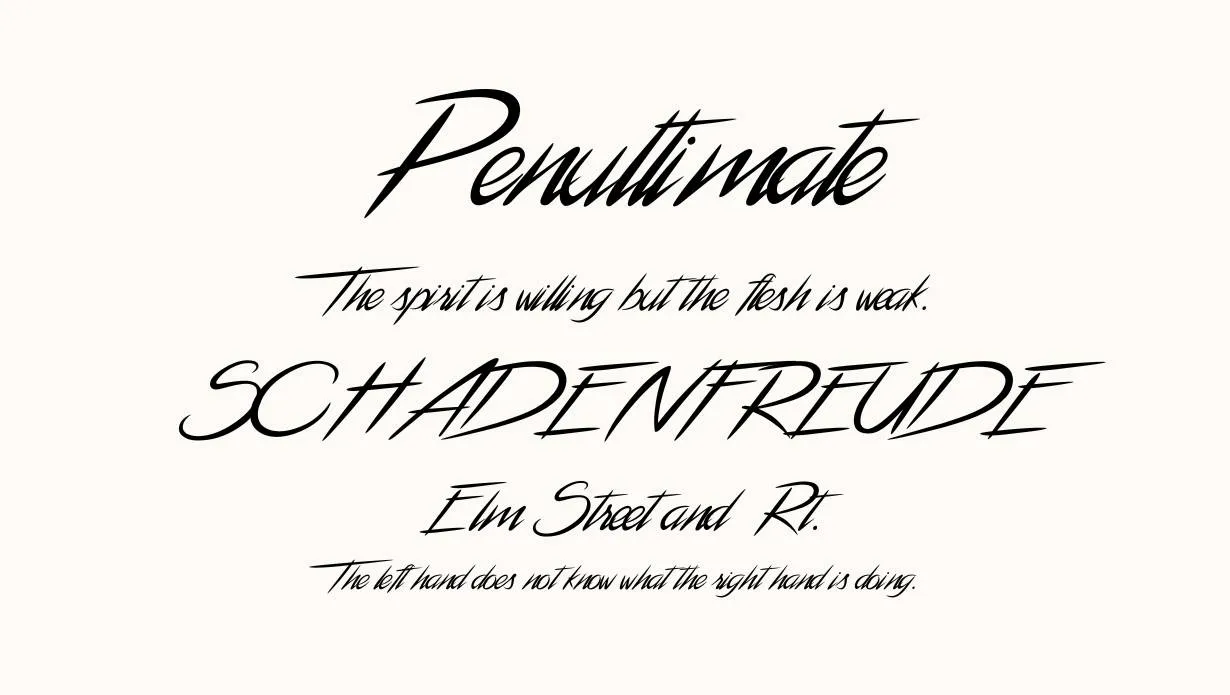
Tahiti Script is a decorative and flowing script font designed to evoke a sense of elegance and whimsy. Its cursive strokes and ornate flourishes make it suitable for projects that require a touch of romance and creativity.
Tahiti Script is commonly used in wedding invitations, event materials, and branding where a graceful and expressive script is desired. Its purpose is to add a touch of beauty and sophistication to text, creating a timeless and enchanting aesthetic.
View of Tahiti Script Font Family